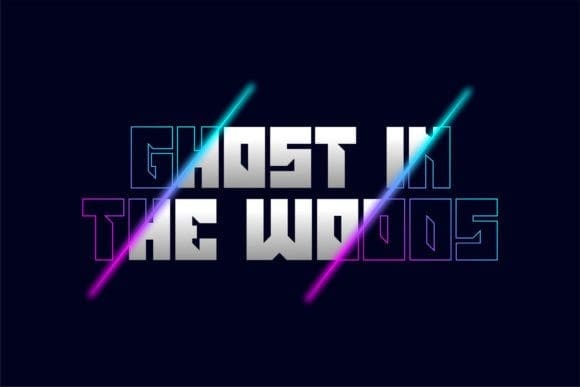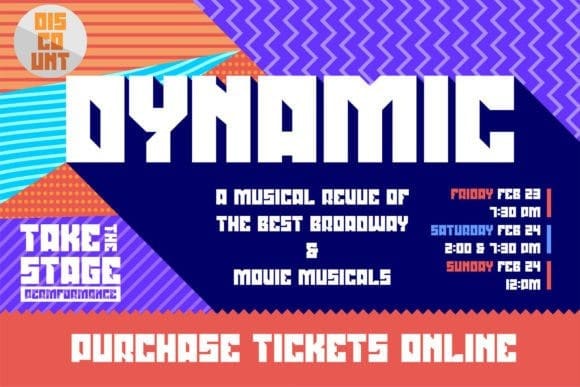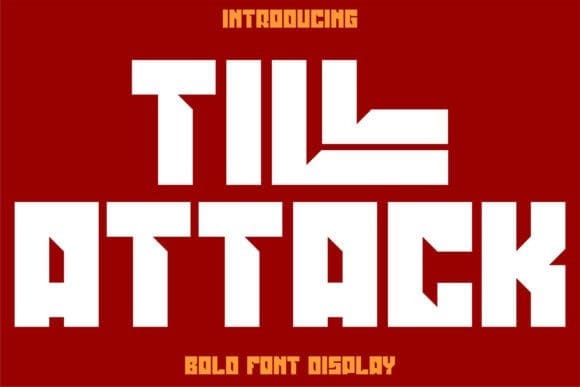
Till Attack Font
Till Attack Font is a typeface characterized by thick and heavy strokes, which give the text a strong and impactful appearance. It is ideal for emphasizing key messages or making a statement. It can be used in headlines, titles, and banners to capture attention and convey a sense of authority and confidence. Till Attack is designed to be easily readable even at larger sizes, making it a popular choice for graphic design projects where visual impact is a priority.